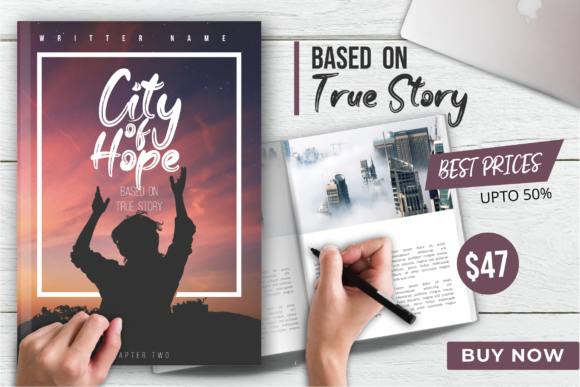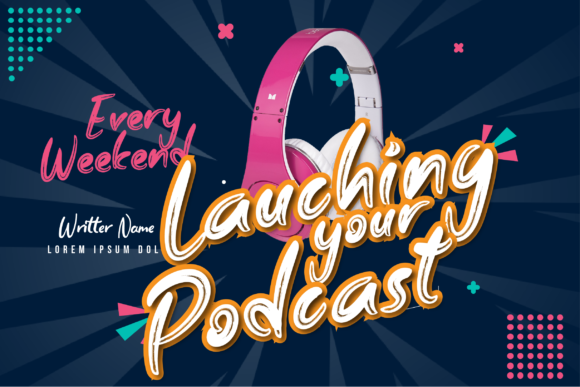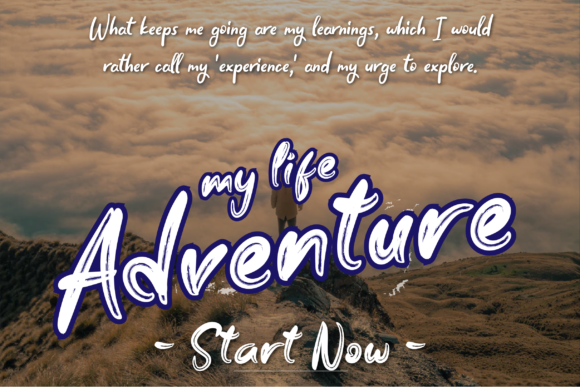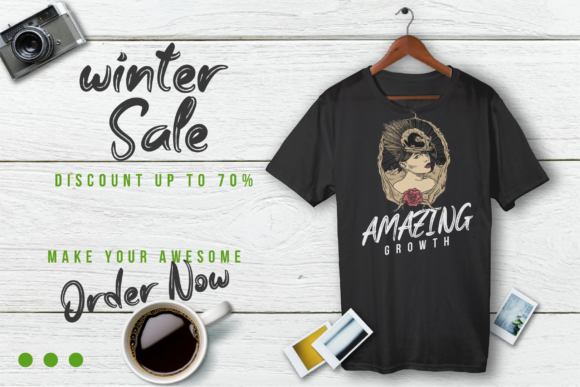
Introduction to Growth Font
Growth is a bold and thick lettered display font, created with the help of a brush pen.
Fall in love with its incredibly versatile style and use it to create spectacular designs .
Key Features of Growth Font
Why Choose Growth Font?